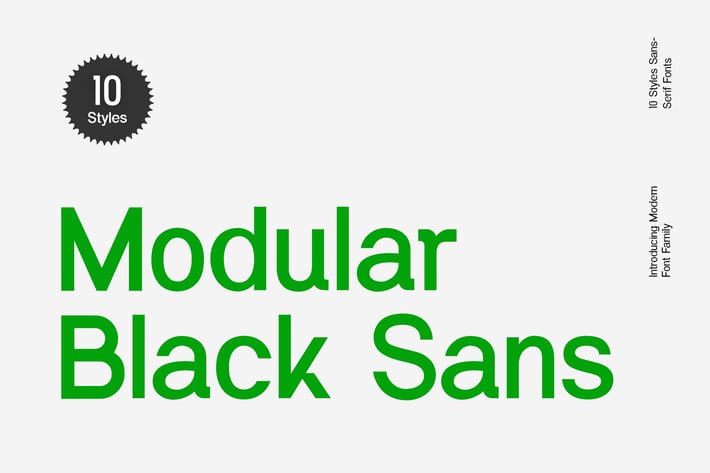
Modular Black Sans Serif Font Family
Introducing our new product the name is Modular Black Sans Serif Font Family. Modular Black Sans Serif Font Family that feels beautiful classy, elegant, and modern. This font is perfectly suited for a wide variety of projects, such as signature, stationery, logo, wedding, typography quotes, magazine or book covers, website headers, clothing, branding, packaging design, and more. Also, fashion-related branding or editorial design displays both masculine and feminine qualities.